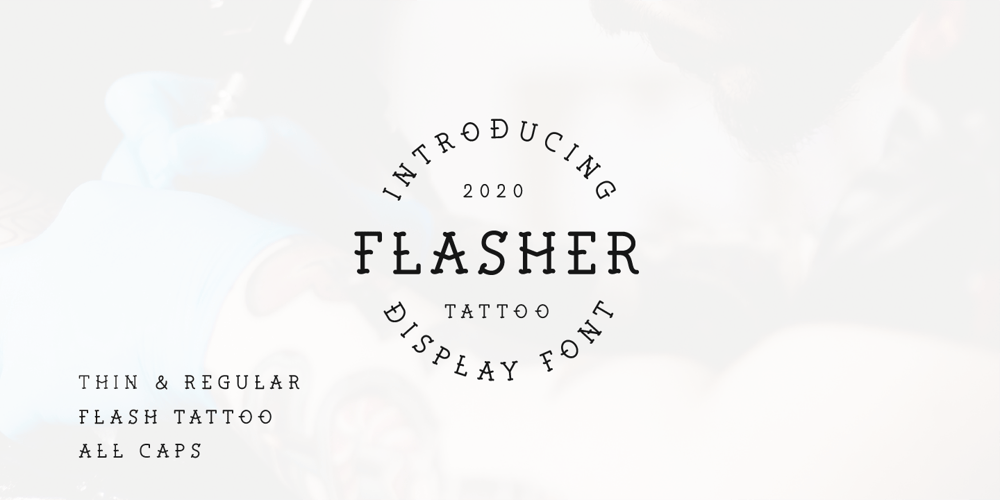
Flasher
Flasher font
Flasher Font Family was designed by Mochamad Bayu and published by BLV Supply. Flasher contains 2 styles and family package options. Flasher is a display font, all caps, traditional tattoo style, simple doodle line with vintage feels,